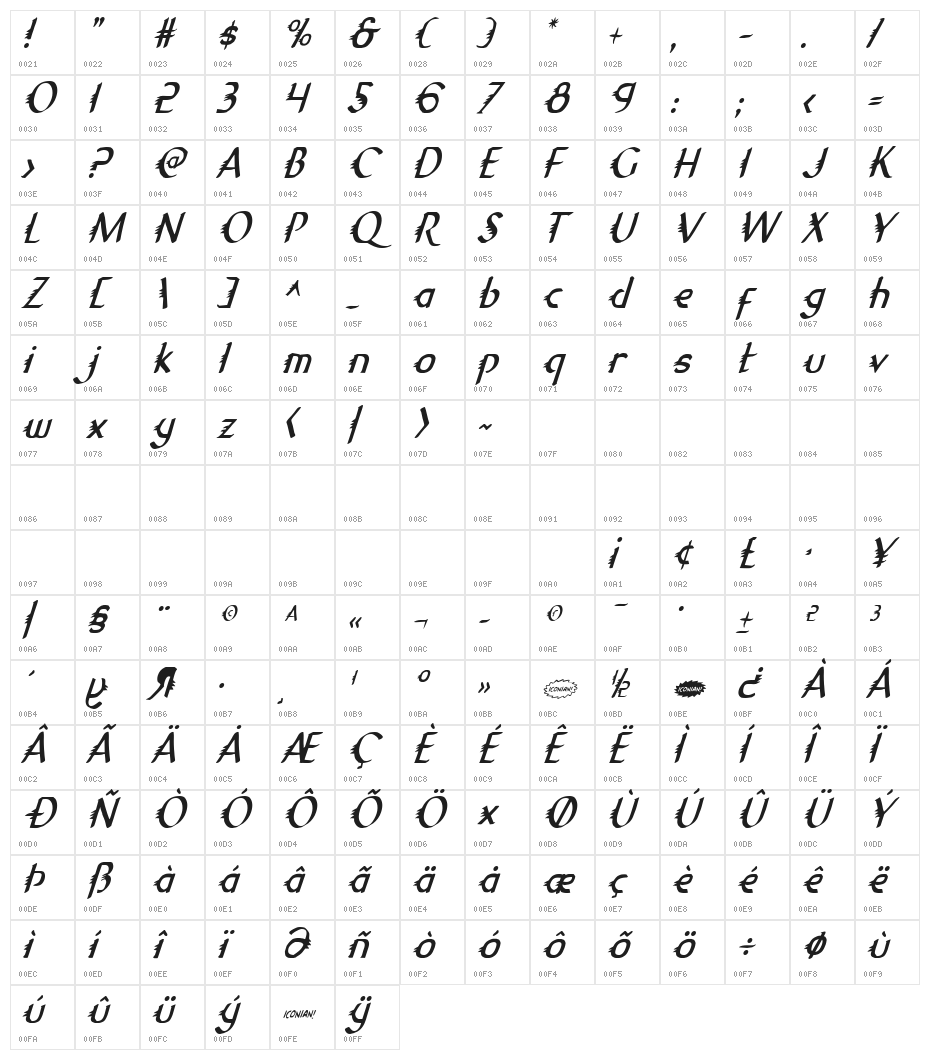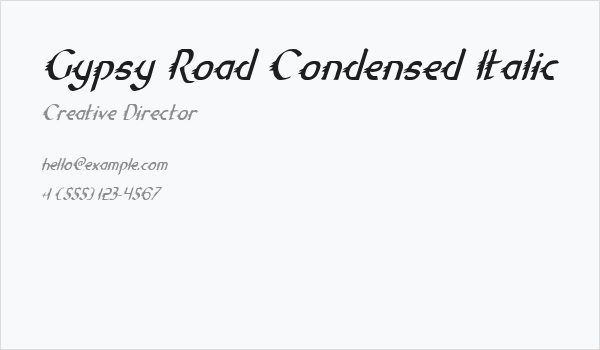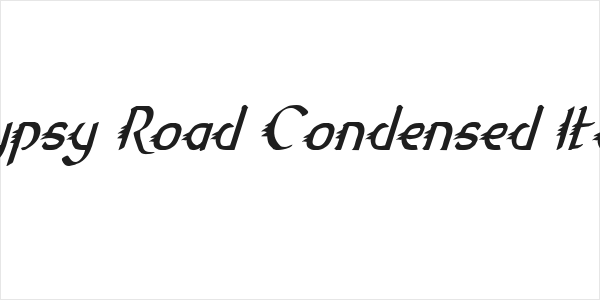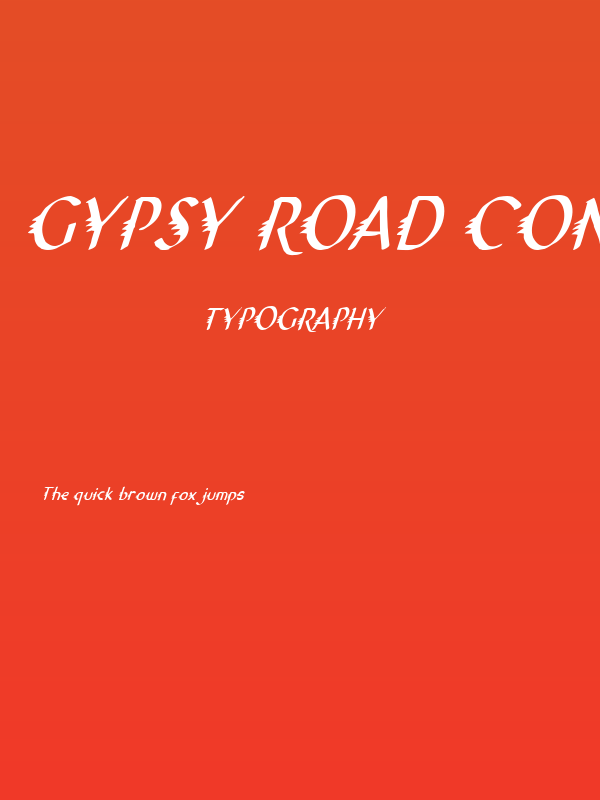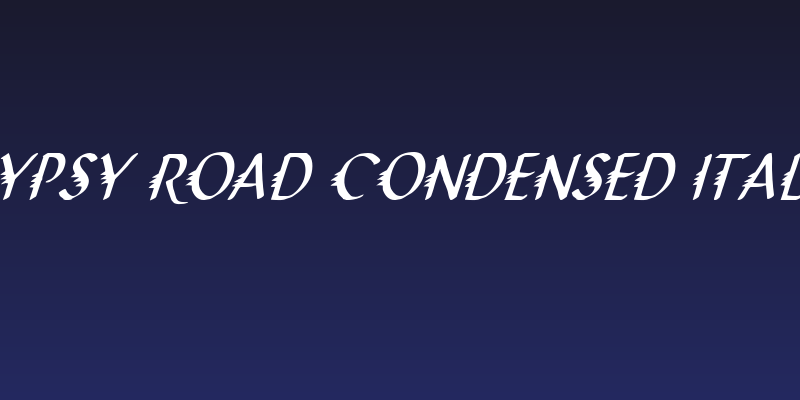
Gypsy Road Condensed Italic Font
Gypsy Road Condensed Italic Description
This font features a unique and edgy design with sharp, jagged edges that give it a dynamic and energetic appearance. The letters are italicized, adding a sense of motion and fluidity. The condensed nature of the font allows for efficient use of space, making it suitable for bold statements. The uppercase and lowercase letters maintain a consistent style, with distinctive cuts and angles that enhance its dramatic flair. Numbers and special characters are designed with the same attention to detail, ensuring a cohesive look across all text elements.